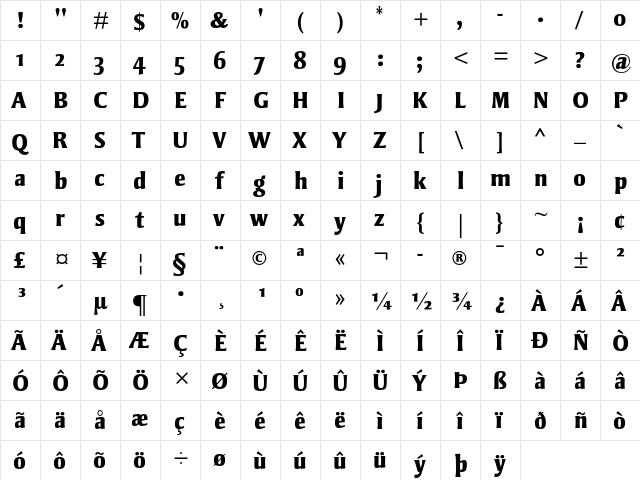
Strayhorn MT Extra Bold OsF
Design Context for Strayhorn MT Typeface
Strayhorn MT is a composed and adaptable typeface that performs quietly and consistently across a wide range of design contexts. Its bold stroke weight gives it real presence on the page.